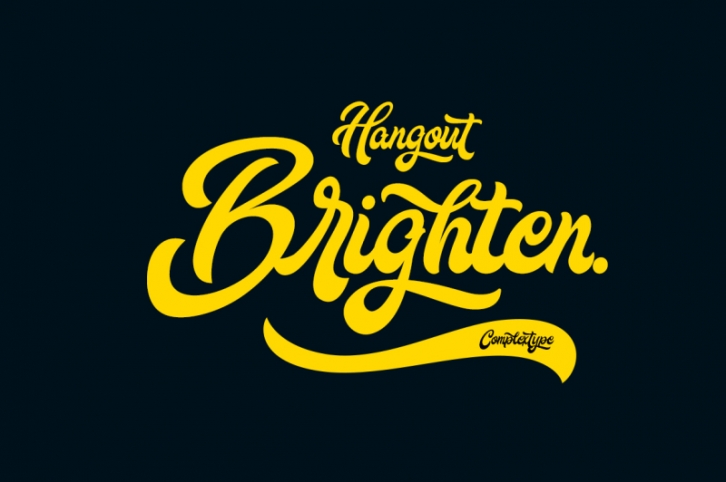
Every glyphs are ideal to make an attractive quote, design. The Alternate characters come with different shapes, could you help to create some creative designs for adventure, travel, wedding, or anything you want.